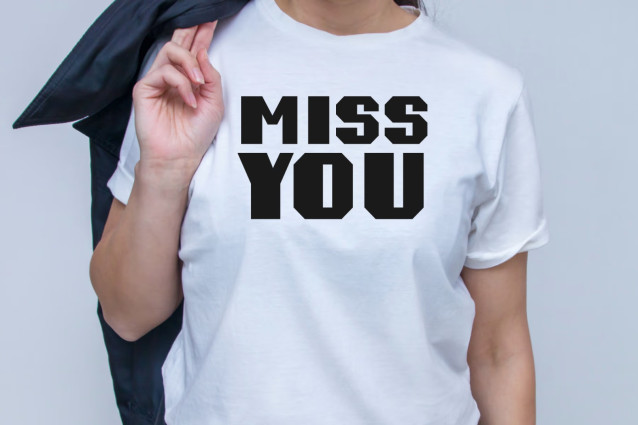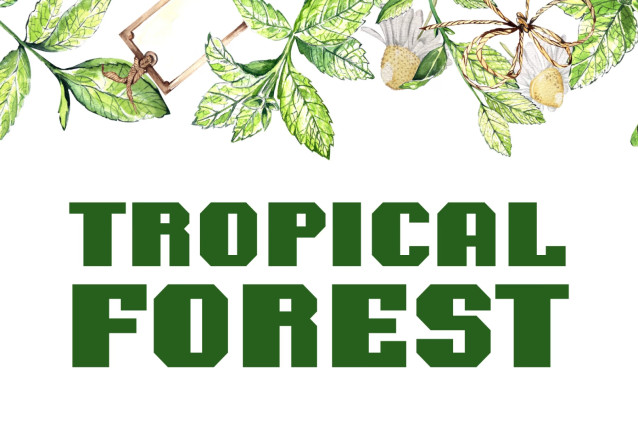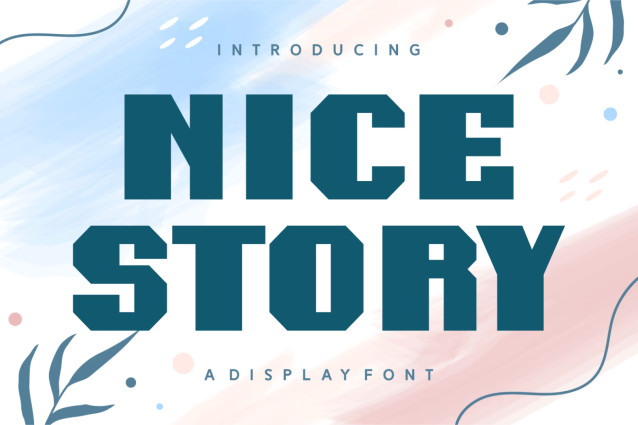
Nice Story Font
Introducing “Nice Story,” a display font that effortlessly weaves elegance and simplicity. It exudes charm, resonating with stunning joyfulness as a cute and bold font, perfect for wallpaper and crafting designs that are certain to steal the spotlight. With a beautiful flow, this font shines on social media posts and brings a refreshing touch to sublimation graphics.
Its simplicity makes it an ideal choice for school assignments and print material, offering a cursive style with delightful accents. Whether you’re designing stylish apparel or authenticity-soaked literary covers, “Nice Story” will truly make a mark. It’s suited to brand identities, cards, and clean designs, offering a refined aesthetic that’s perfect for both intimate and professional settings.